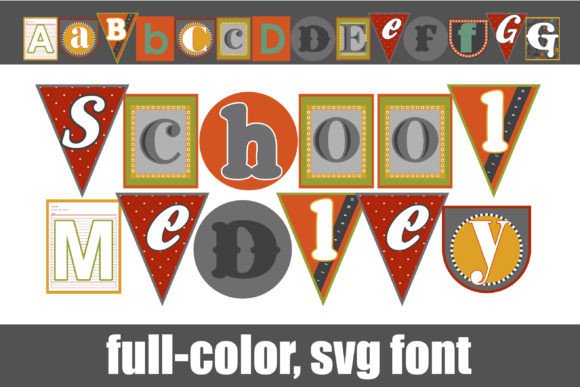
Journey back to your childhood memories with the School Medley Font, a vibrant and enchanting font that will bring a touch of nostalgia to your designs. Inspired by the lively spirit of school days, this full-color font, lovingly crafted by Illustration Ink, features a delightful mix of font styles arranged on school-themed bunting. Each letter dances with joy, evoking fond memories of laughter, friendship, and learning.
Unlock a world of creativity with the School Medley Font. Whether you're designing children's books, creating playful invitations, or adding a whimsical touch to your branding, this font will inject an infectious energy into your projects. Its versatility knows no bounds, captivating audiences of all ages with its playful and charming aesthetic.
With its full spectrum of colors and diverse styles, the School Medley Font transforms ordinary text into captivating works of art. From vibrant rainbow hues to classic black and white, you'll find the perfect palette to match your vision. Its OpenType SVG format ensures seamless installation, allowing you to effortlessly bring your colorful creations to life.
Immerse yourself in the School Medley Font's stunning high-quality graphics. Every stroke and curve is meticulously crafted to deliver exceptional clarity and detail, even when enlarged to billboard proportions. Say goodbye to pixelated or blurry fonts and embrace the crisp, vibrant beauty of the School Medley Font.
Tap into the endless possibilities of the School Medley Font. Its vector-based format grants you the freedom to scale your designs to any size without compromising on quality. Create eye-catching logos, captivating social media graphics, or stunning website headers that will leave a lasting impression on your audience.